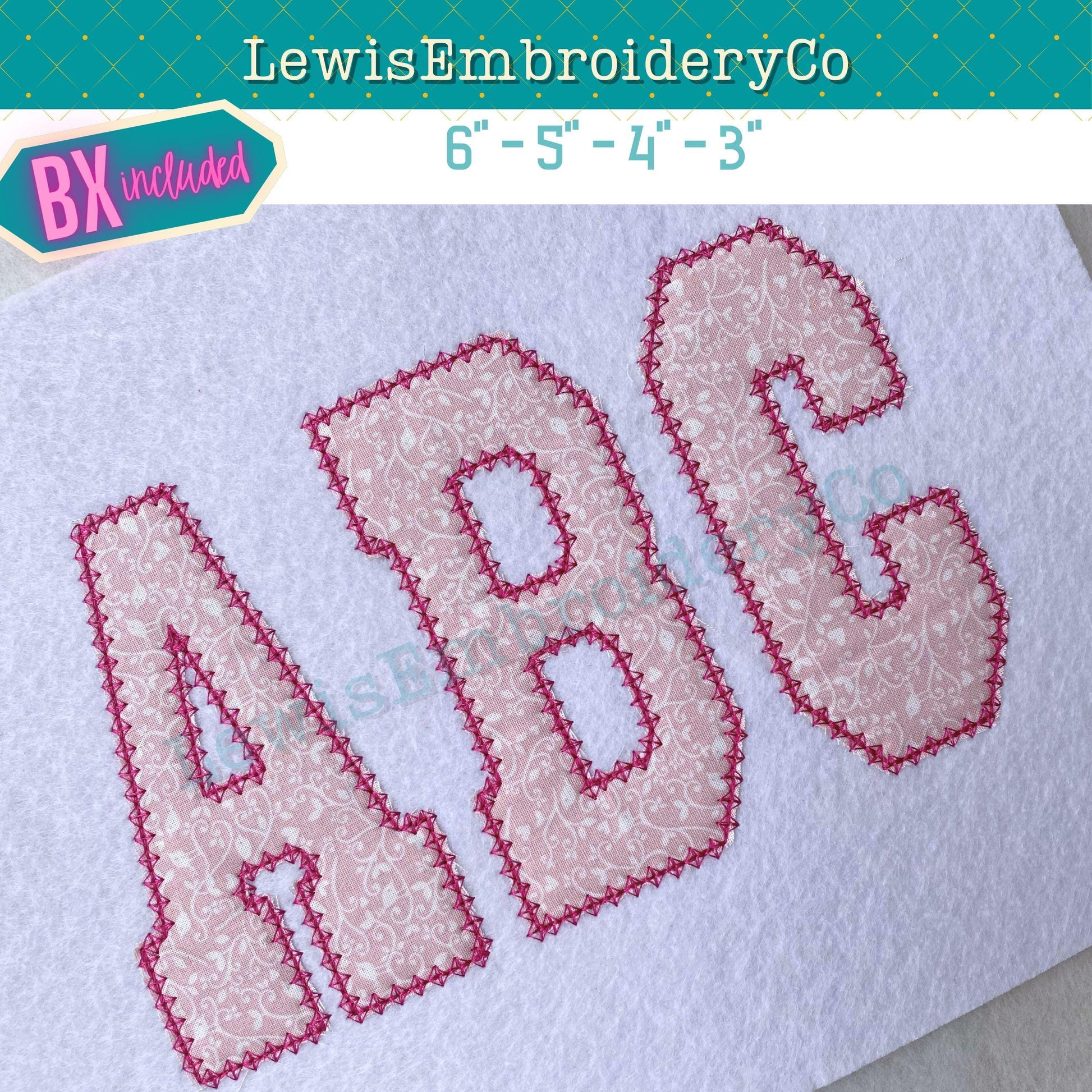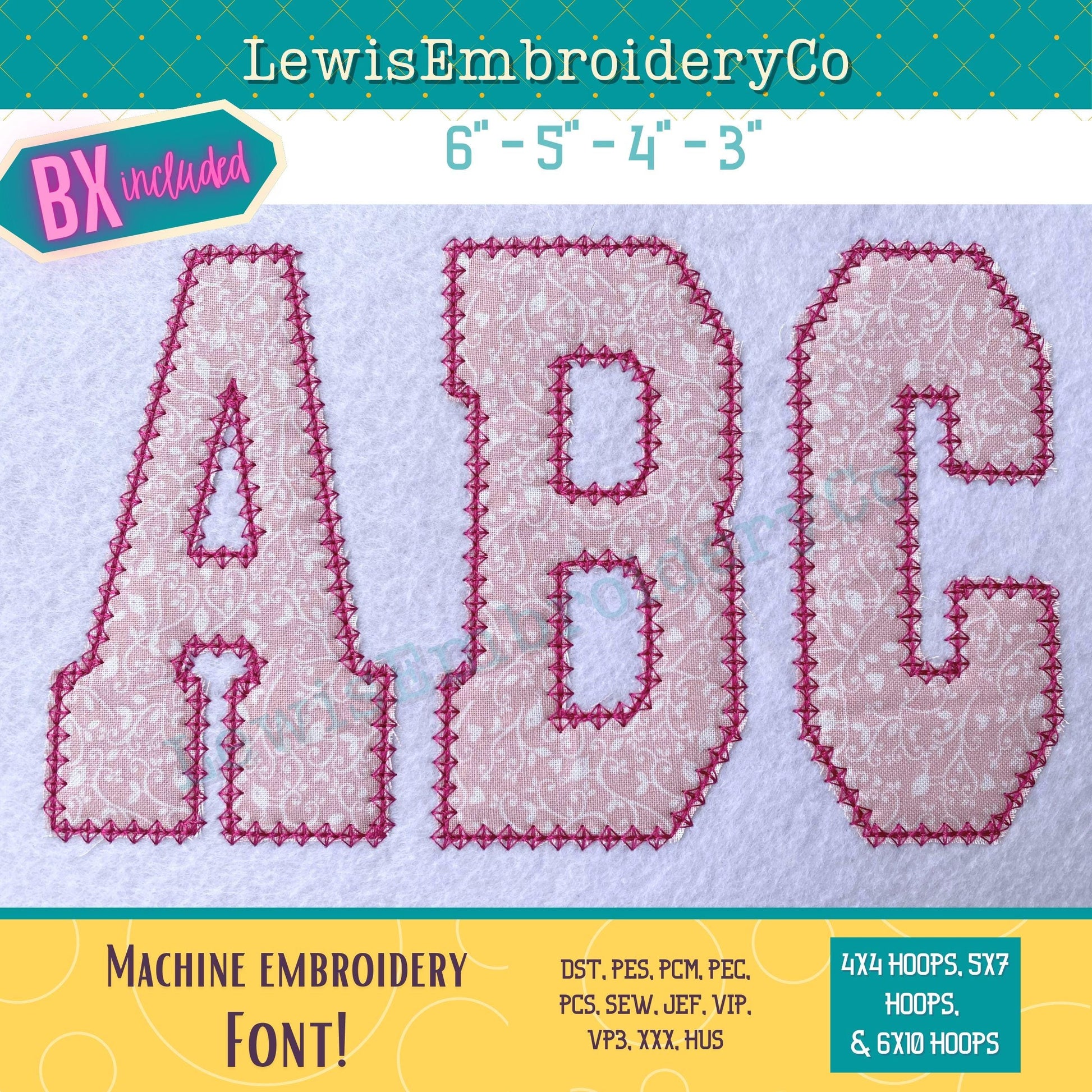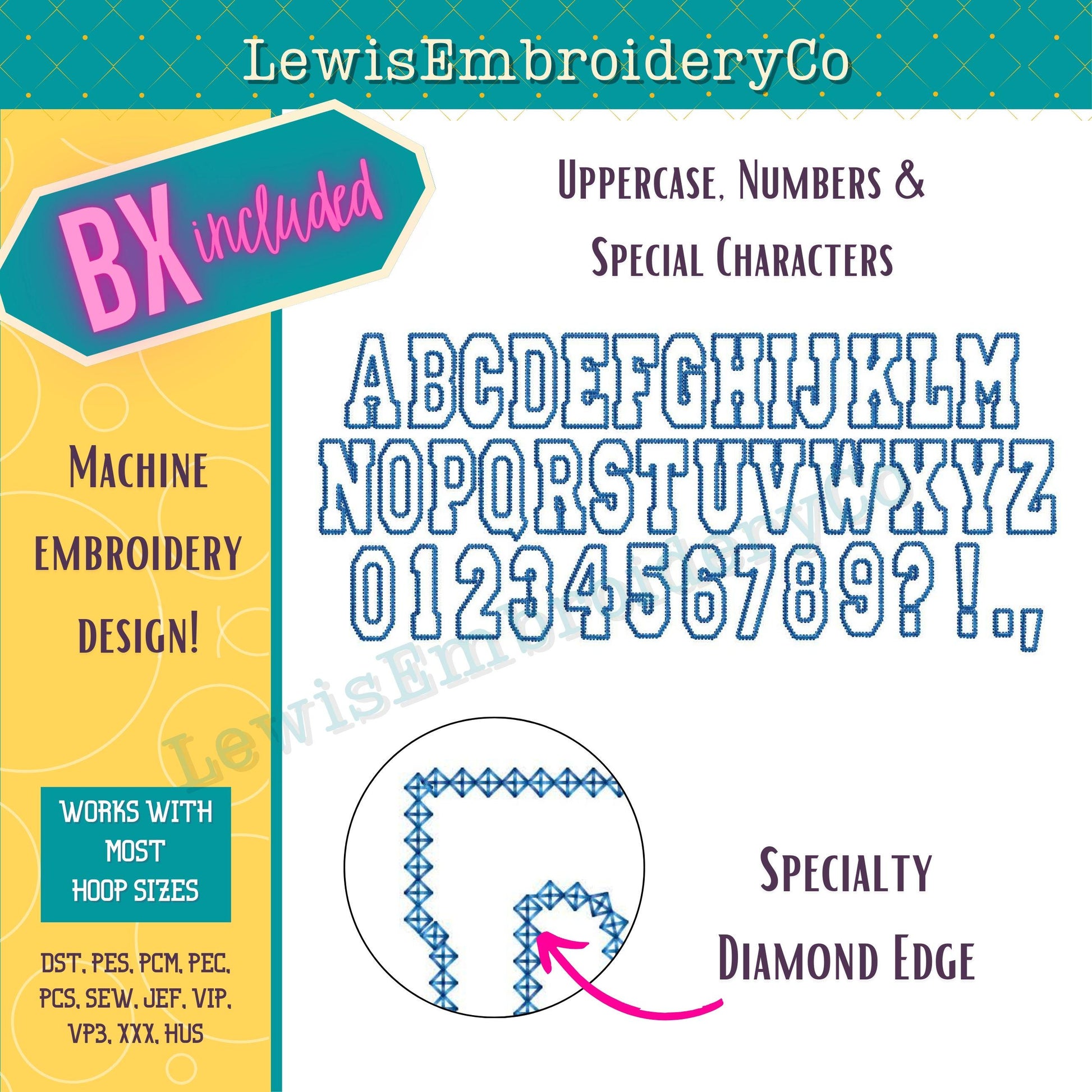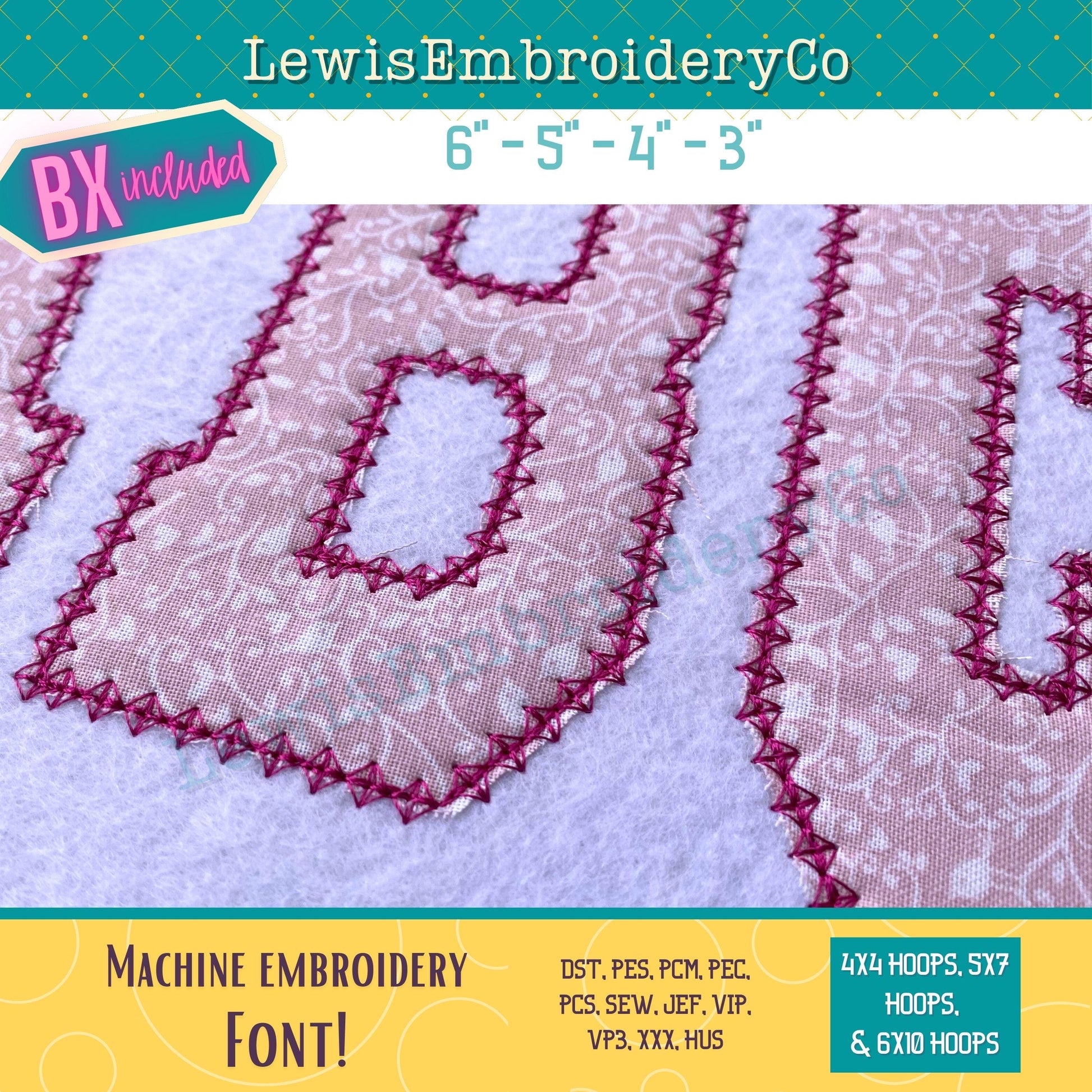
Diamond Edge Applique, Varsity, Machine Embroidery Font - With BX - (PDF Tutorial Included)
Diamond Edge Applique Embroidery Font - Varsity Block Letters - Vintage Edge Applique Alphabet - Applique Embroidery Font - Mama Sweatshirt
This fun font will add a nice touch to any of your projects!